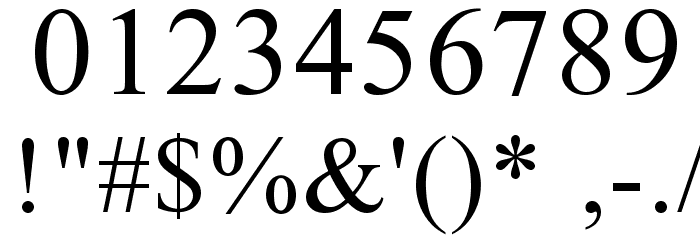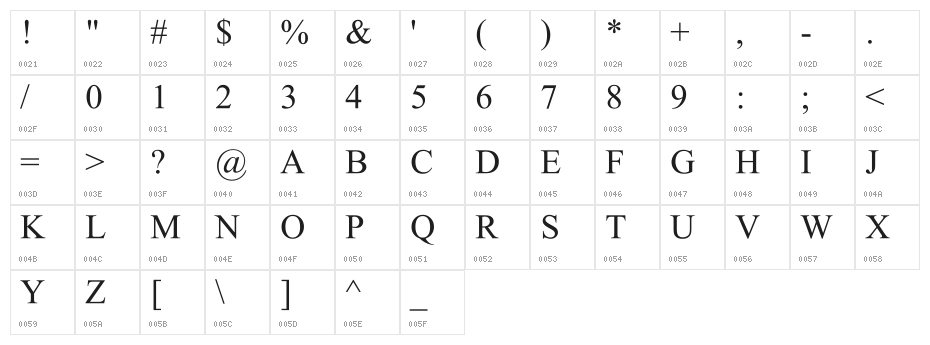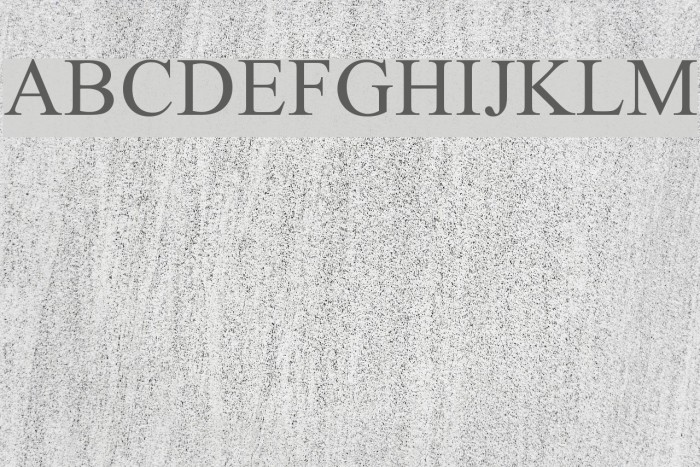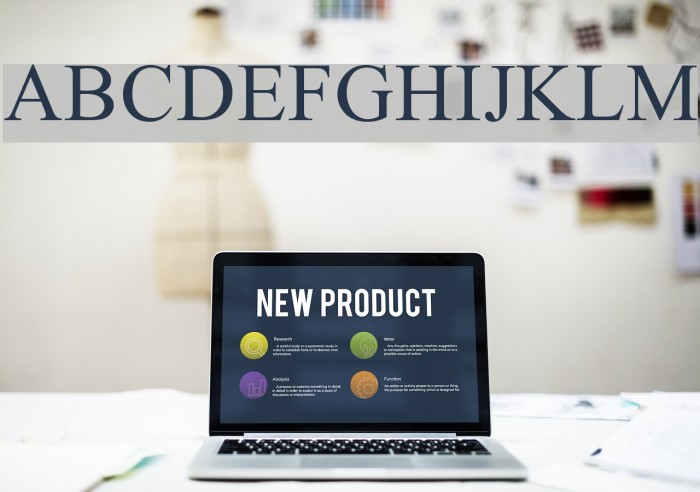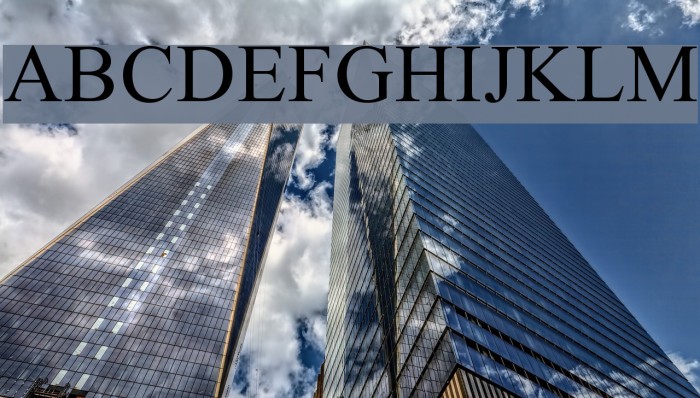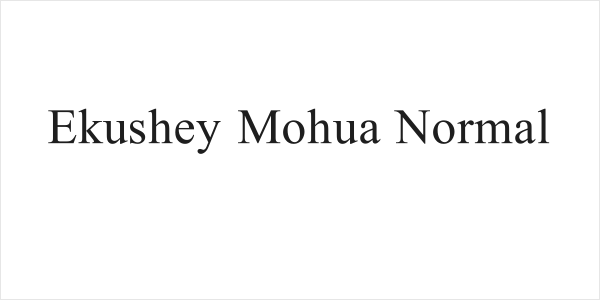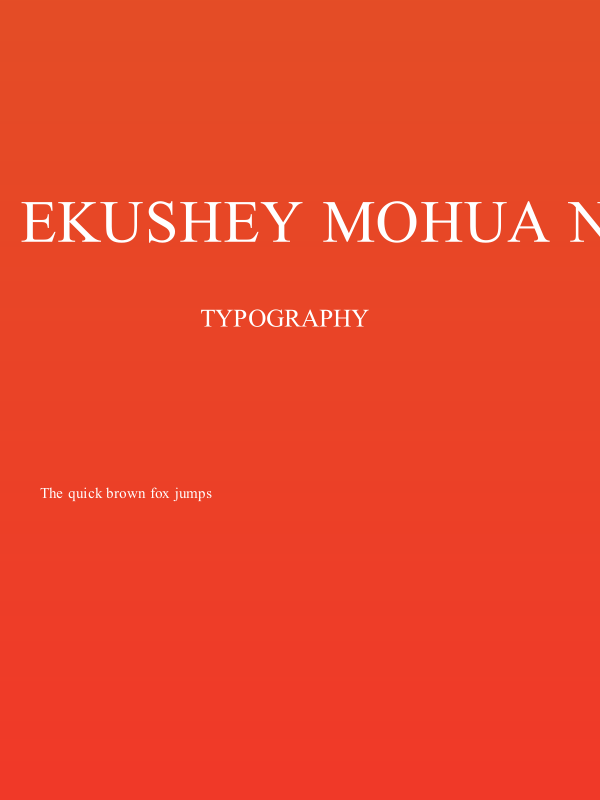
Ekushey Mohua Normal Font
| समग्र शैली | Classic |
| उपयोग का मामला | Headlines, Body text, Logos |
| सुझाए गए प्रोजेक्ट | Ideal for editorial design, book covers, formal invitations, and branding projects requiring a touch of elegance. |